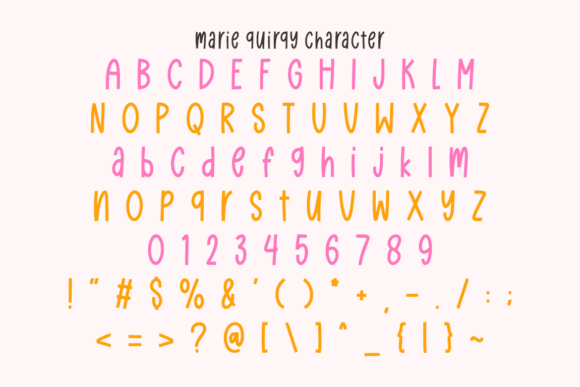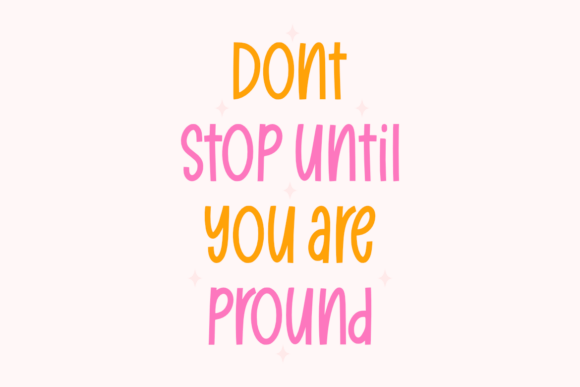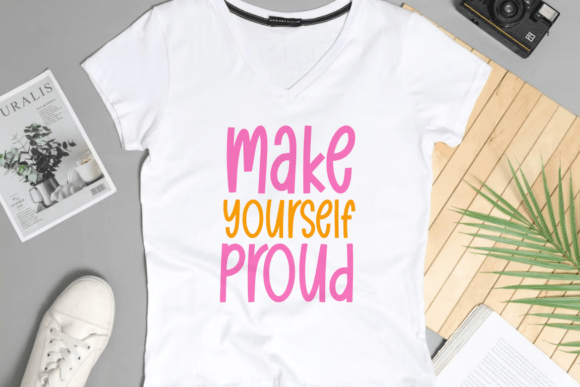
Introduction to Marie Quirky Font
As a designer, have you ever found yourself stuck in a creative rut, desperate for a spark to bring your ideas to life? You’re not alone! Sometimes, all it takes is the right tool to unlock your imagination and take your project to the next level. For me, that tool is the enchanting Marie Quirky Font, a delightful display font that’s perfect for adding a touch of whimsy to your designs.
With its soft curves and bold appearance, the Marie Quirky Font is a design resource that’s both fun and versatile. Whether you’re working on a free download project or a high-quality branding campaign, this font is sure to add a dreamy touch to your creations. Plus, its transparent background makes it easy to layer over other design elements, giving you endless possibilities for creativity.
Key Features of Marie Quirky Font
- Unique and quirky design, perfect for creative projects requiring a touch of whimsy
- High-quality font with a transparent background, ideal for use on various design resources
- Includes 50 unique characters, including uppercase and lowercase letters, numbers, and special characters
- Designed with a resolution of 300 DPI, ensuring crisp and clear typography in various sizes
- Perfect for use in graphic design, digital art, and other creative projects where a quirky touch is desired
Honest Review: Marie Quirky Font
I recently stumbled upon the Marie Quirky Font, and I must say it’s been a game-changer for my creative projects. The high quality of this font is undeniable, making it a valuable design resource for any project.
What works well is the wide range of styles and formats available, including a transparent background option. This flexibility makes it easy to incorporate into various designs without any issues.
- ✨ Versatile and adaptable to different design styles
- ✨ High-quality font with a transparent background option
However, there are a few limitations to consider. The font is not suitable for all types of projects, particularly those requiring a more formal tone. Additionally, the font’s quirky nature may not appeal to designers looking for a more traditional or professional look.
- ⚠️ May not be suitable for formal or professional projects
- ⚠️ The quirky nature may not appeal to all designers
Overall, the Marie Quirky Font is a fantastic resource for designers working on creative projects. Its high quality, versatility, and free download option make it a must-have for any design enthusiast.
Marie Quirky Font Overview
Tips for Getting the Most Out of Marie Quirky Font
For a transparent background, use the font with a PNG or GIF image. This will give you a clean and modern look.
The Marie Quirky Font is perfect for creative projects, such as:
1. Social media graphics.
2. Blog posts and articles.
3. Infographics.
4. Flyers and brochures.